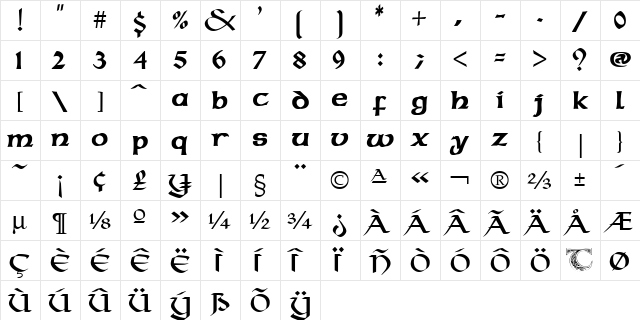
Celticmd DecorativeWDropCaps
Design Context for Celticmd Typeface
Celticmd is built around its visual character rather than neutral utility — its distinctive forms are designed to make an impression at display sizes.
Font Pairing: Pair with a clean neutral sans-serif for body copy to let Celticmd's character lead without overwhelming the composition.
Pro Tip: Treat Celticmd as the centrepiece of your typographic hierarchy. One strong heading set in a decorative face can carry an entire layout.